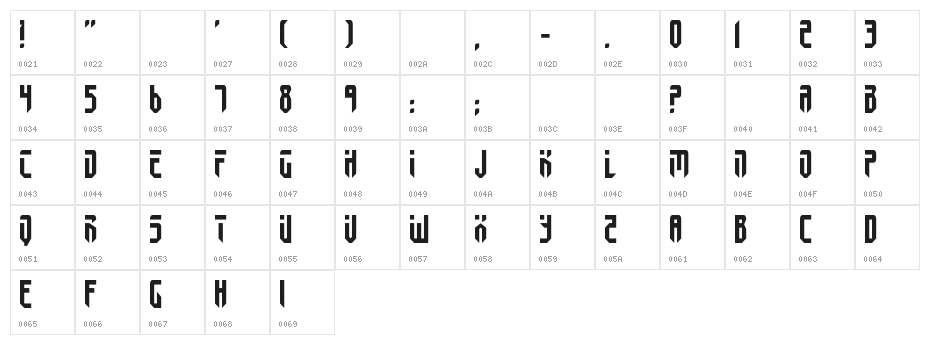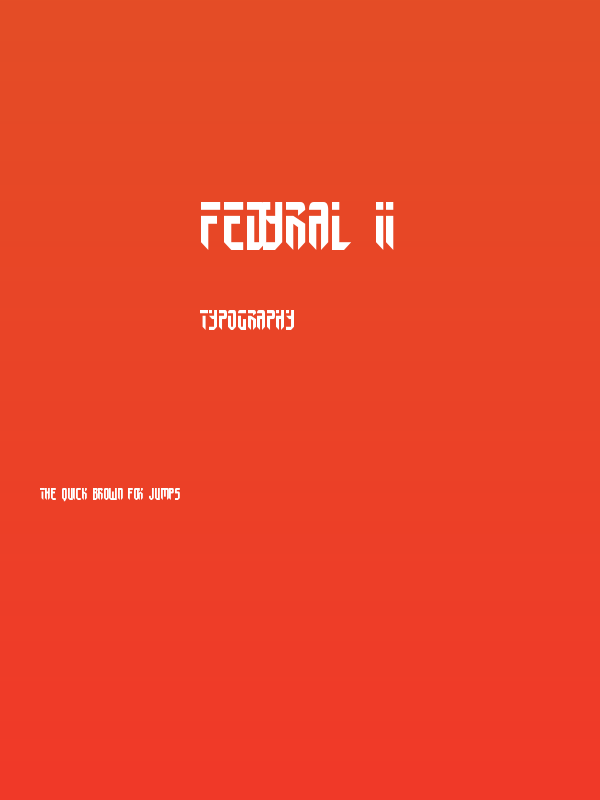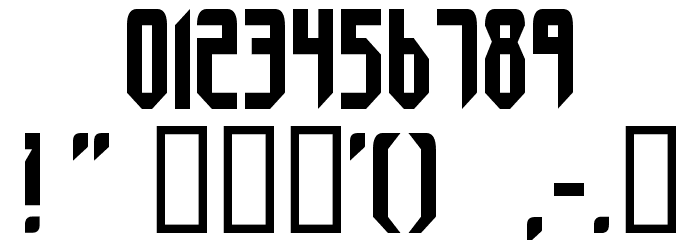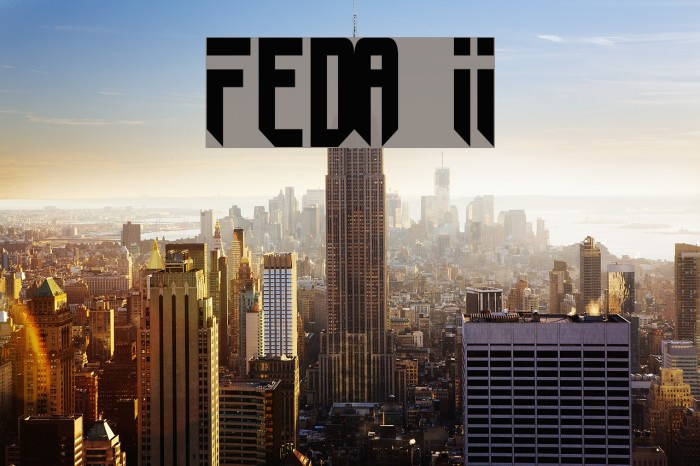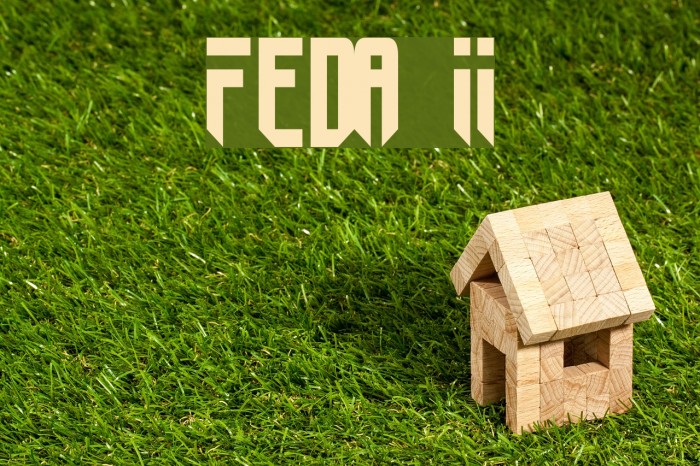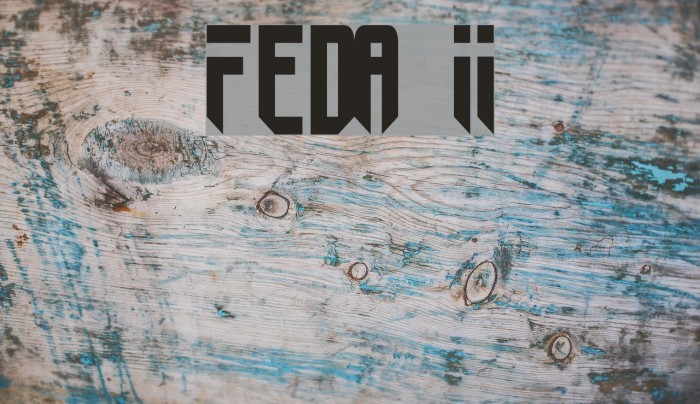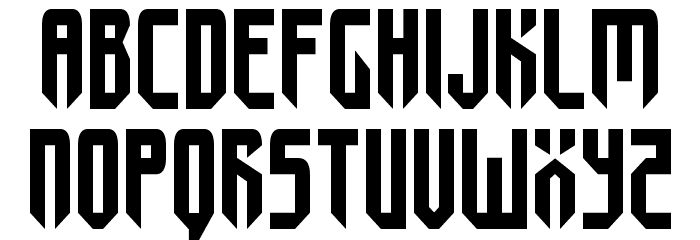
Fedyral II Font
Fedyral II Description
This font exhibits a bold and geometric style with sharp angles and a futuristic appearance. The characters are constructed with a consistent thickness, creating a uniform and cohesive look. The uppercase and lowercase letters share a similar design, enhancing the font's modern and edgy aesthetic. The numerals and special characters maintain the same angular and structured form, ensuring visual harmony across all elements. This font's unique design makes it stand out, making it suitable for projects that require a strong and distinctive visual impact.
| Overall Style | Futuristic |
| Proposed Projects | Ideal for branding, posters, video game graphics, and sci-fi themed designs. |